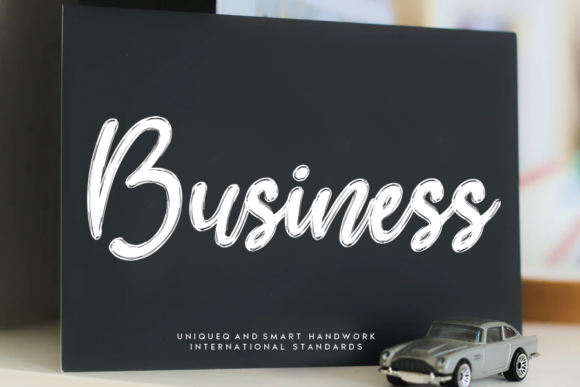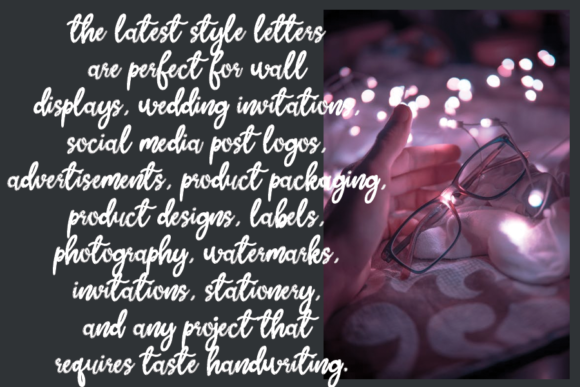
Dragonfly Font
db-ku.com - Script & Handwritten -- Dragonfly is a cute and casual handwritten font with an incredibly friendly feel. Whether you’re looking for fonts for Instagram or calligraphy scripts for DIY projects, Dragonfly will turn any creative idea into a true piece of art!